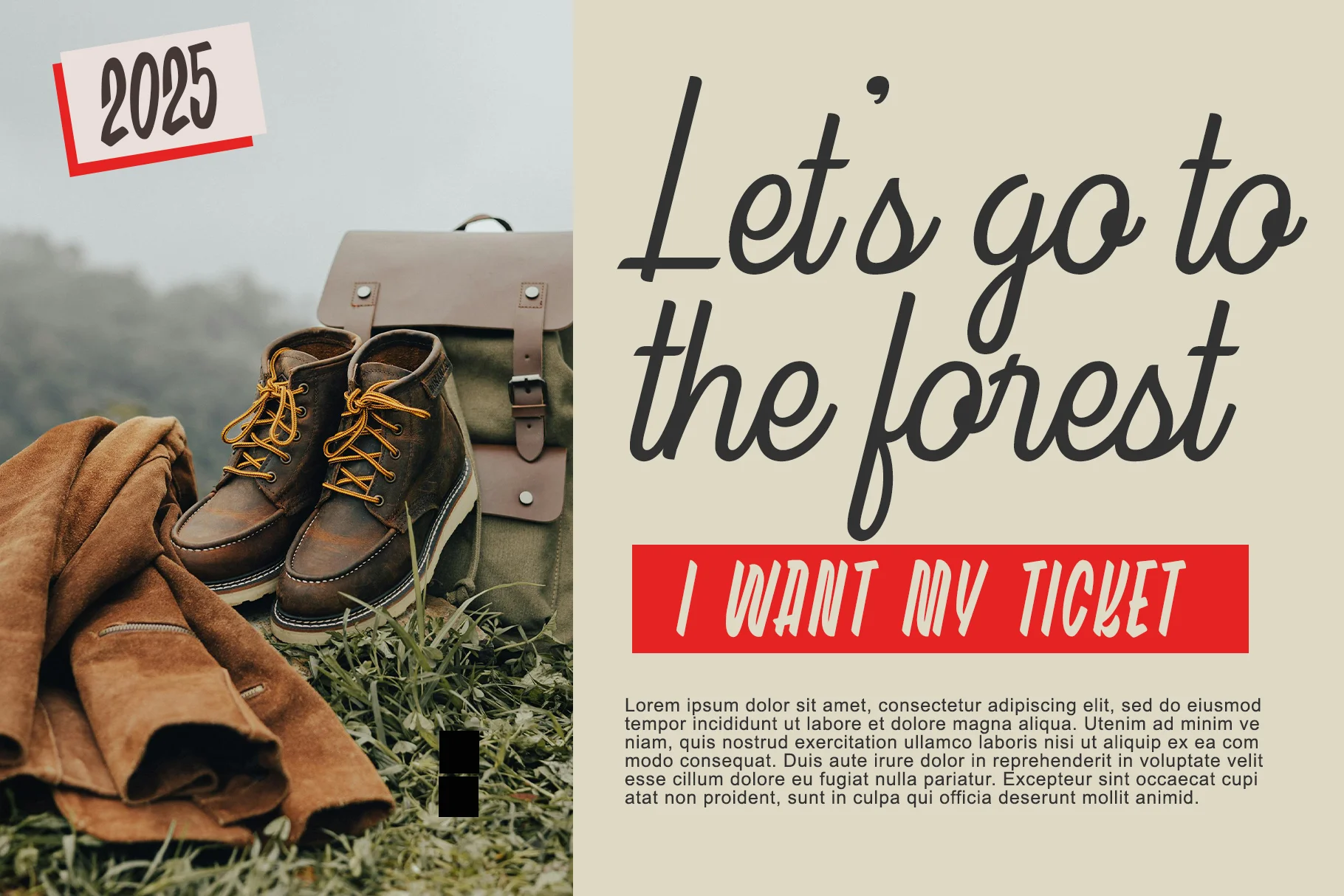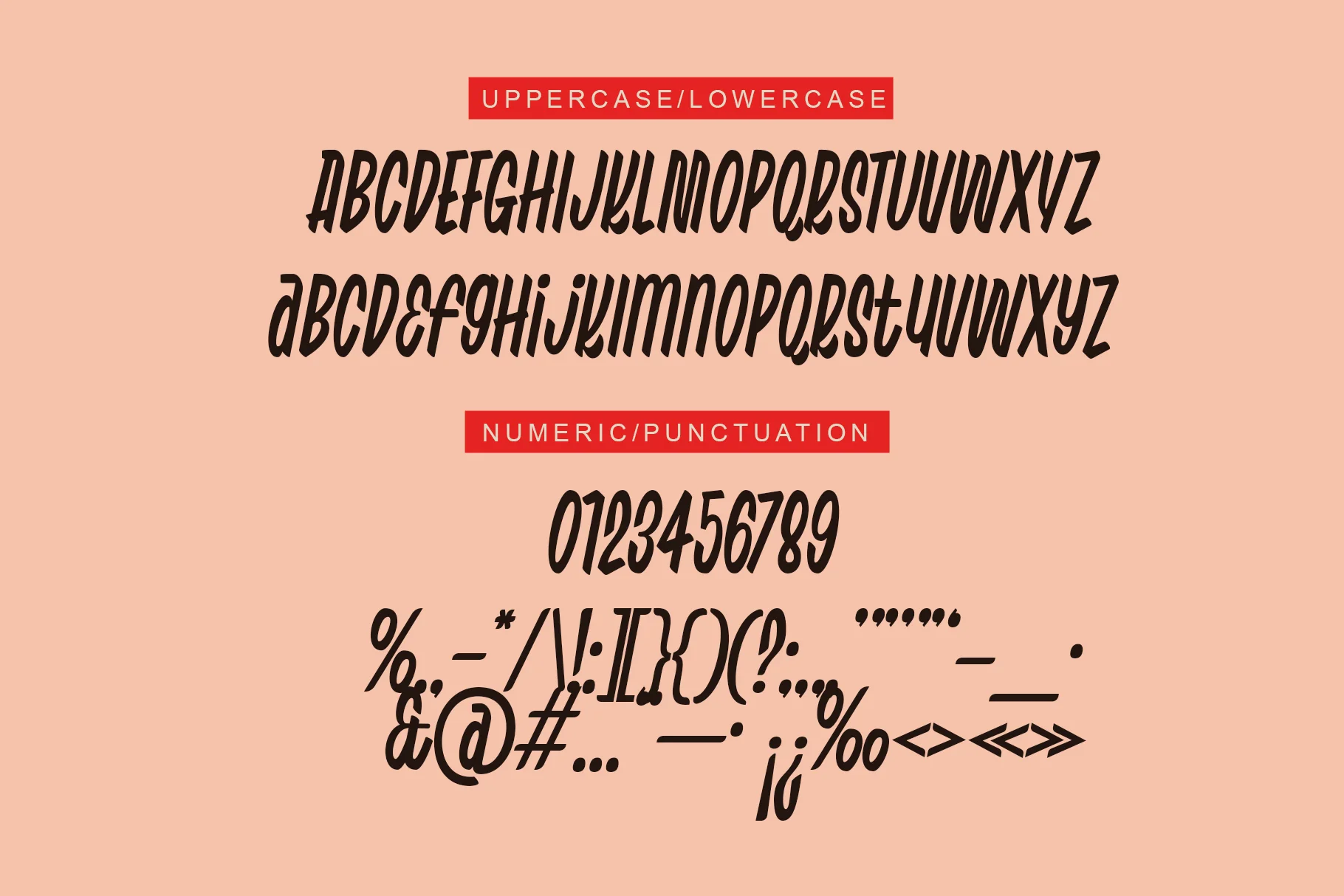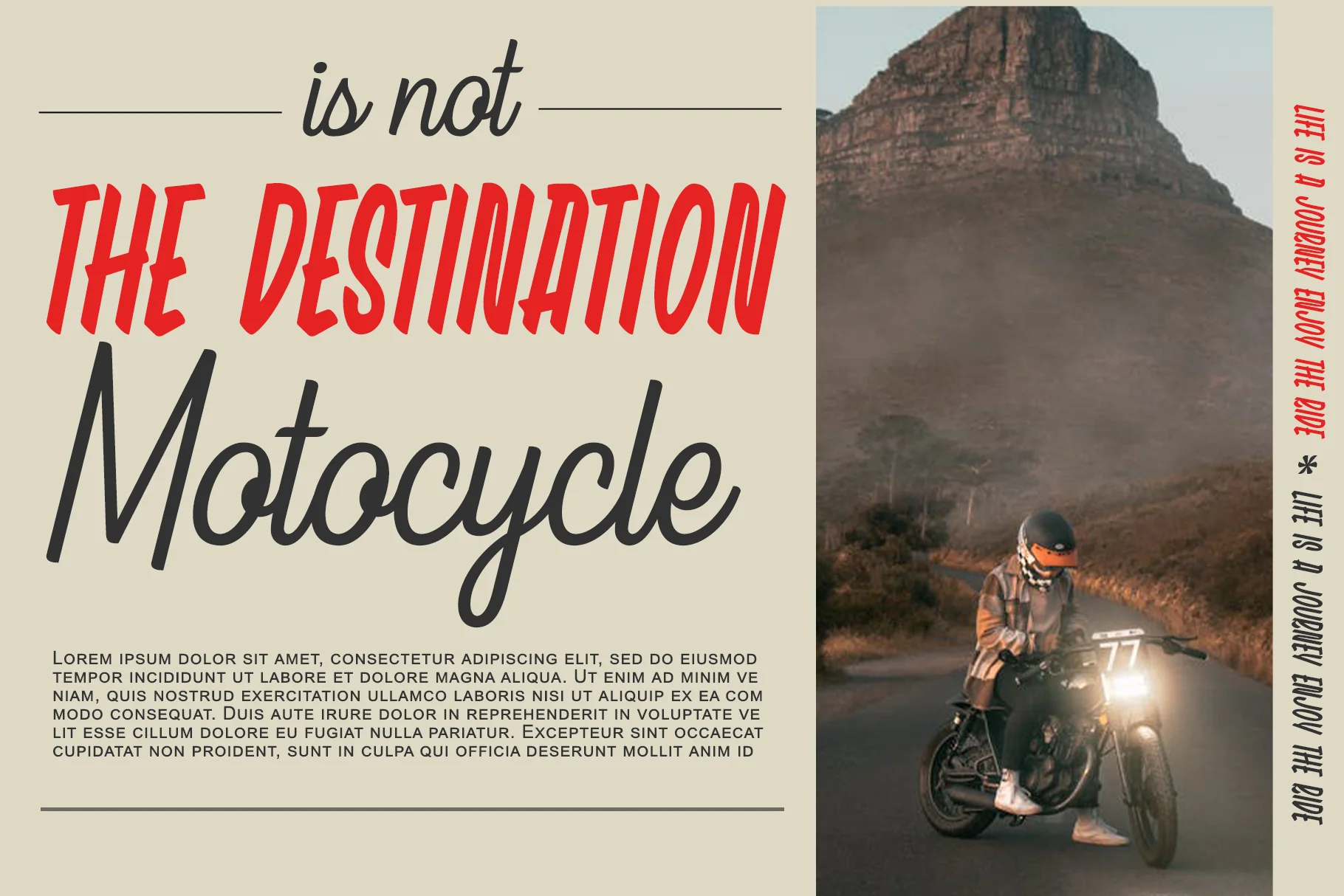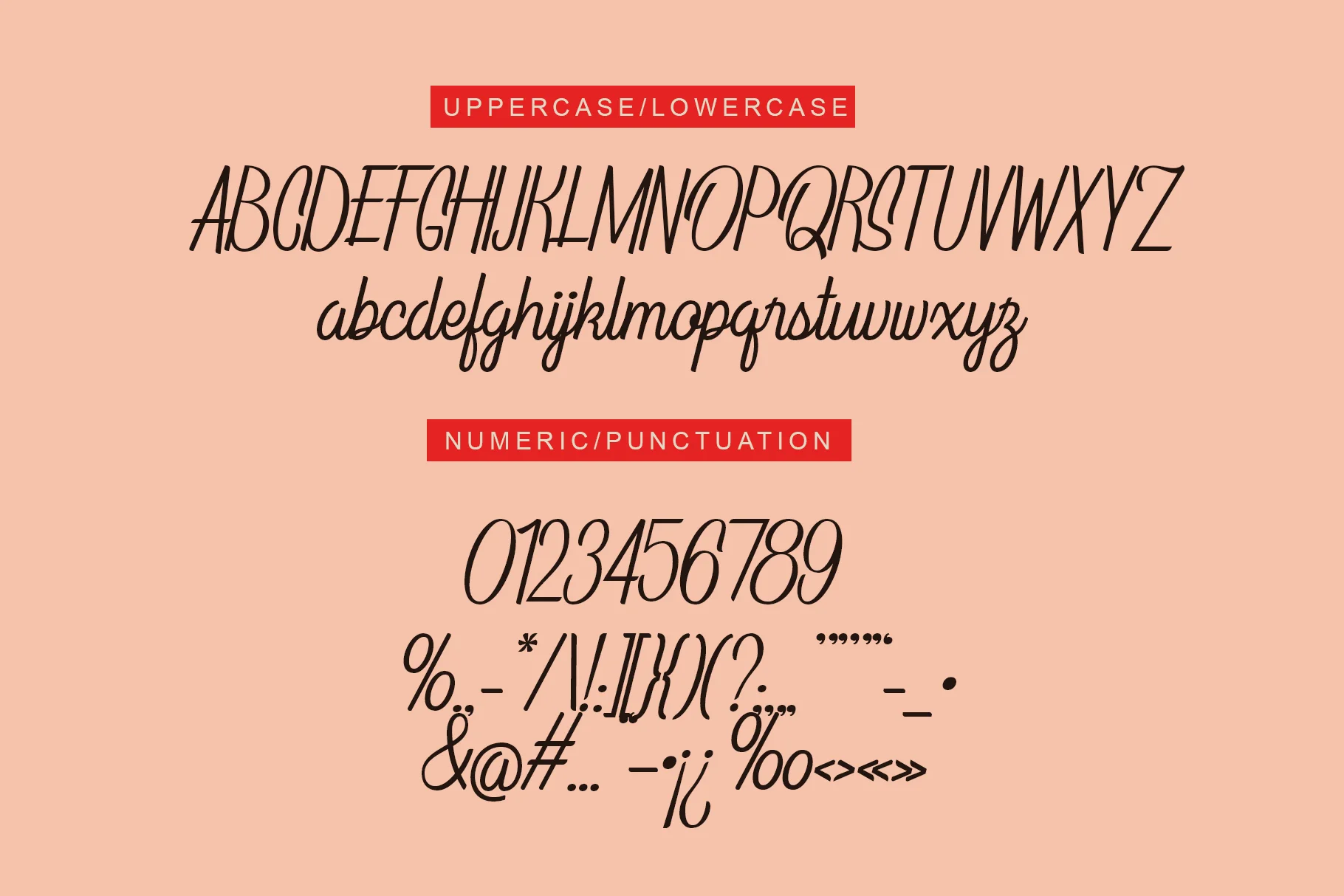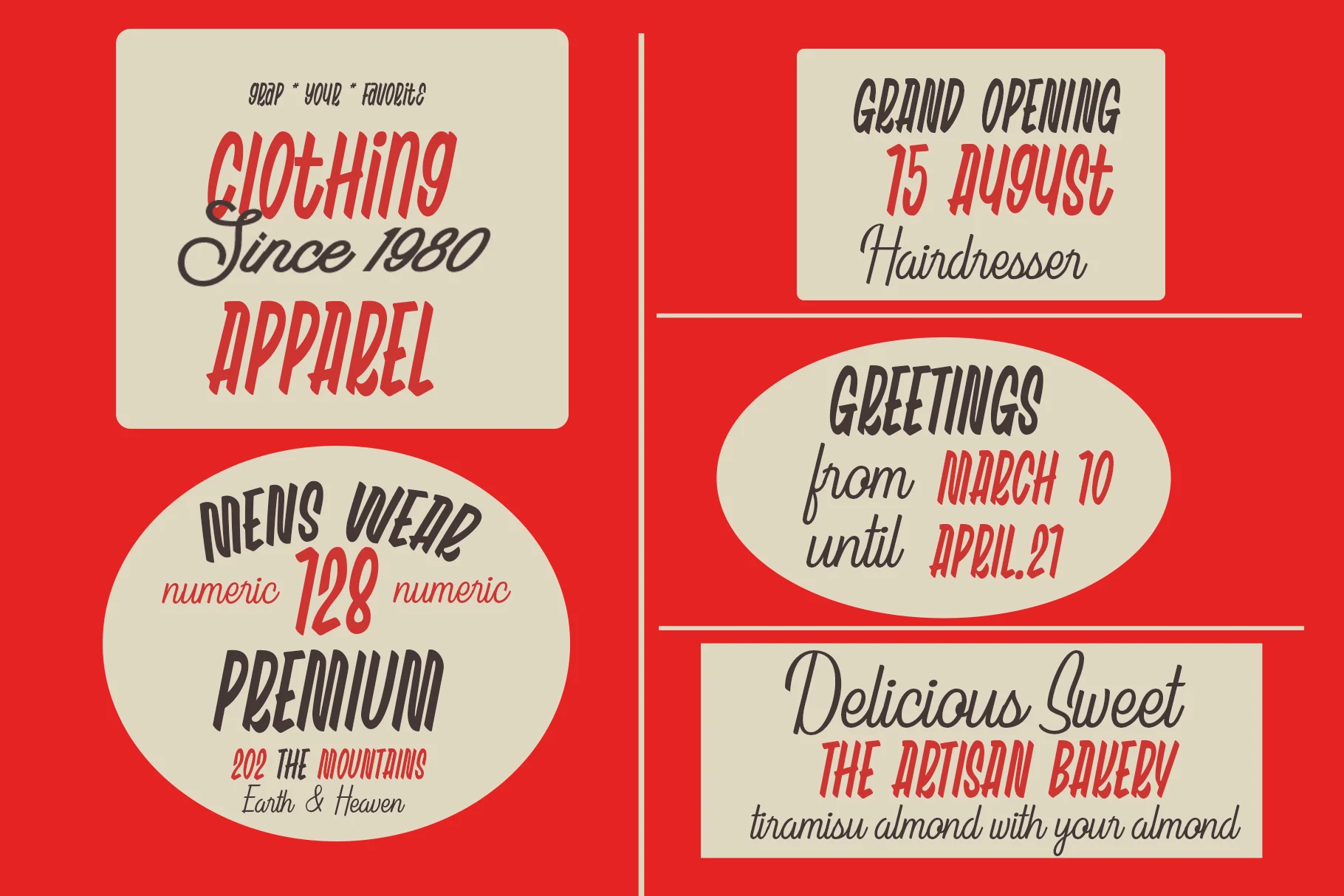
Popculine
Popculine Signature is a duo display font designed to create a bold, contrasting, and stylish impression. The combination of these two styles makes it highly versatile for designs that require strong visual contrast and a cheerful yet trendy feel, such as posters, fast food or beverage branding, pop merchandise designs, and modern retro/vintage-inspired marketing materials.
Features
- Uppercase and Lowercase – Complete range of letter cases for diverse uses.
- Numerals – Includes numbers for various creative needs.
- Functional – Designed for efficiency and aesthetic appeal.
- Multilingual Support – Includes characters for multiple languages.
- Stylistic Variations – Offers creative style options.